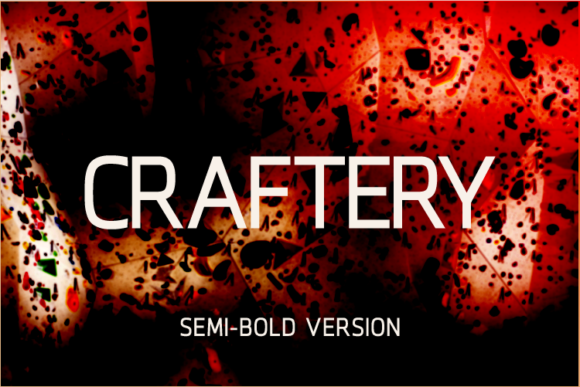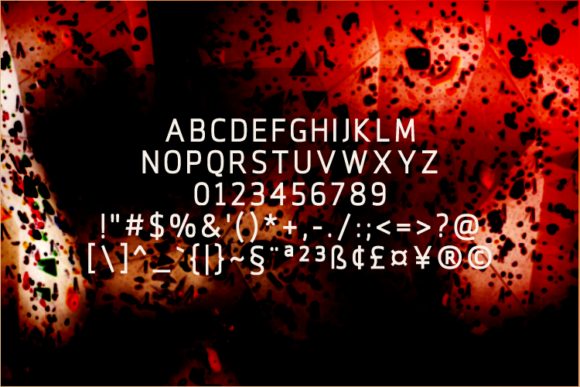
HomeSans Serif FontsCraftery Semi-Bold Font Sans Serif Fonts Craftery Semi-Bold Font FacebookXPinterestWhatsApp Craftery Semi-Bold Font 1 of 2 About Craftery Semi-Bold Font Craftery is a modern sans serif font inspired by the simplicity of classic geometric shapes. It will add a minimalist feel to any design project! DOWNLOAD NOW People also explored Uniqueen Semi-Bold Font Spaghetti Mellanis Font Clyde | A Vintage Slab Serif Family Font Lickody Font Palemell Font Dessert Font Crazy Snail Font Samorina Font 310 0 TagsCraftery Semi-Bold Font Previous articleCraftery Bold FontNext articleCraftery Medium Font LEAVE A REPLY Cancel reply Comment: Please enter your comment! Name:* Please enter your name here Email:* You have entered an incorrect email address! Please enter your email address here Website: Save my name, email, and website in this browser for the next time I comment. Personal Use Free Spaghetti Personal Use Free Read more about this font Pumpkins Candles Personal Use Free Read more about this font Budmo Personal Use Free Read more about this font Kitsor Rauttie Personal Use Free Read more about this font BLOG 5 Fonts That Will Dominate Design Trends in 2026 5 Fonts for 2026 That Will Dominate Design Trends Typography plays a critical role in visual communication, and as we look ahead to 2026, it’s... Top 10 Handwritten Fonts That Elevate Your Designs Transform Your Website: Elevate Your Typography with 7 Best Web Font Generators Elegant Wedding Invitation Fonts – Handwritten & Script Fonts